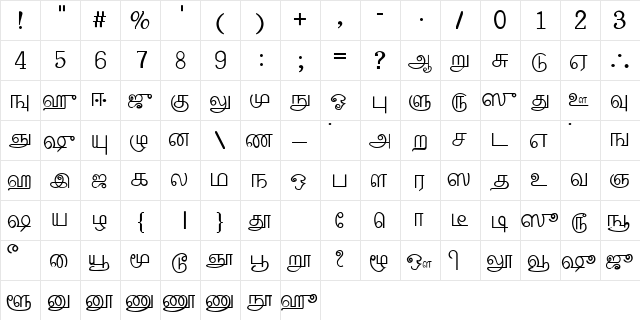
Palladam Medium
Design Context for Palladam Typeface
Palladam is a composed and adaptable typeface that performs quietly and consistently across a wide range of design contexts.